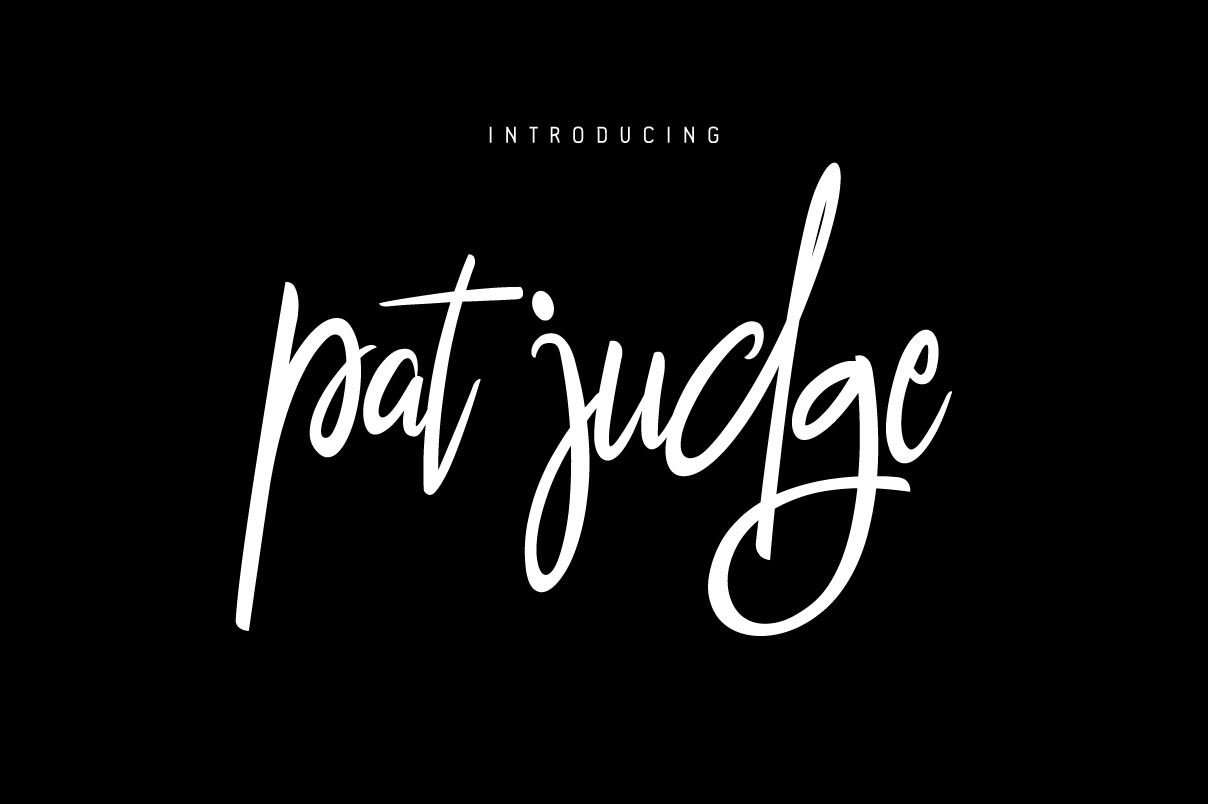
pat judge font
Introducing pat judge font
A clean handwriting modern calligraphy with fast stroke but still clean execution, perfectly fit for your branding stuff, logo, wedding invitation, handcrafted goods label, packaging, etc.